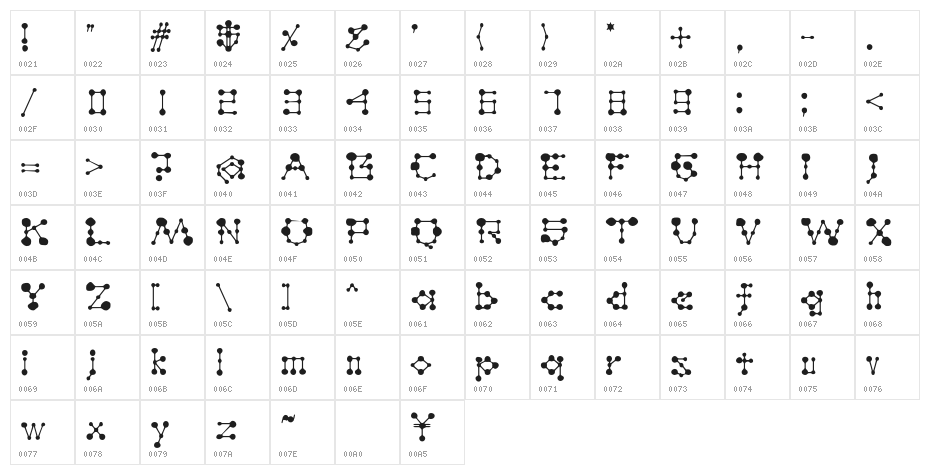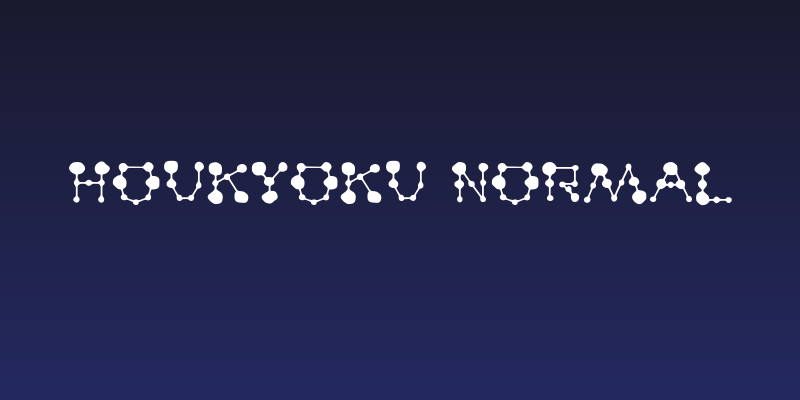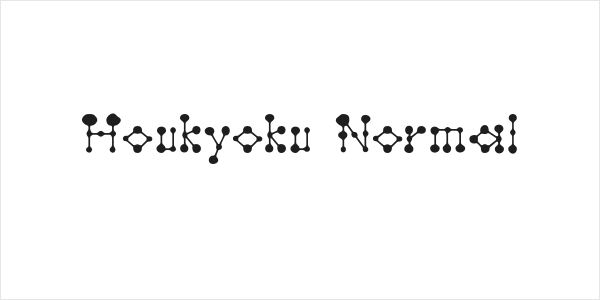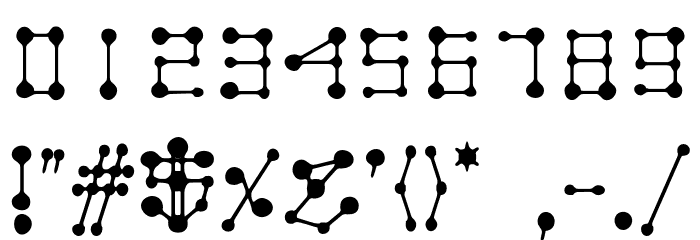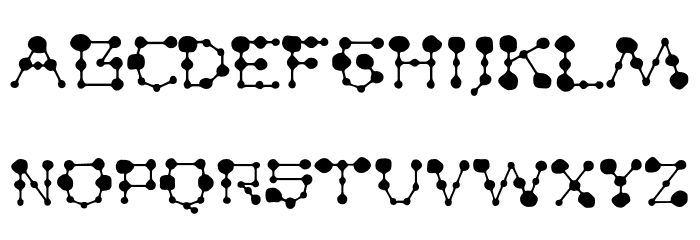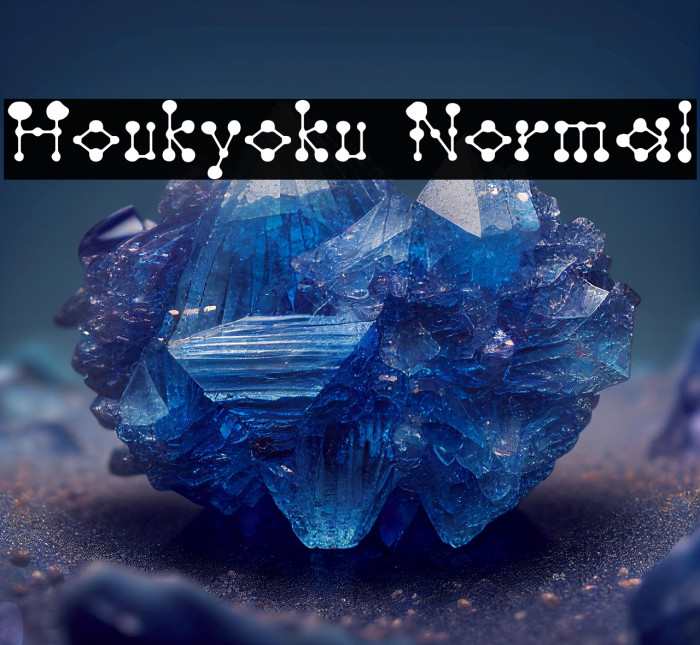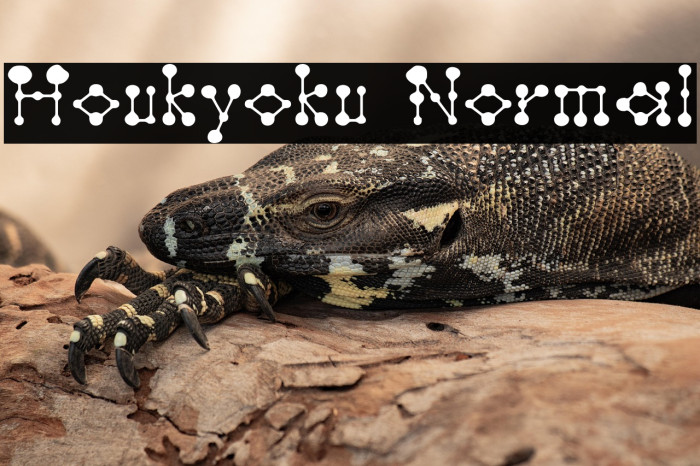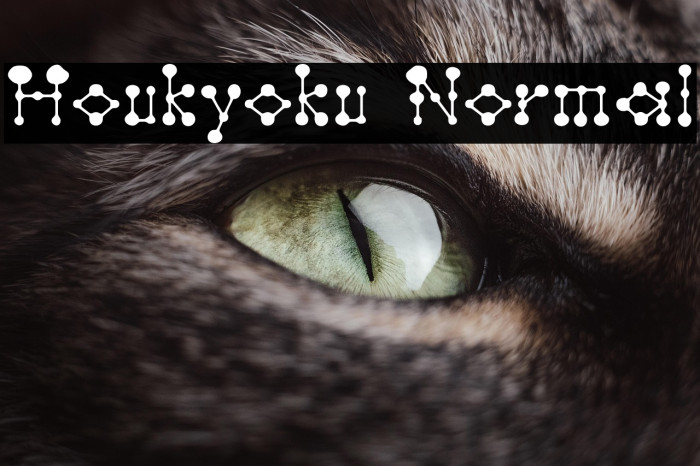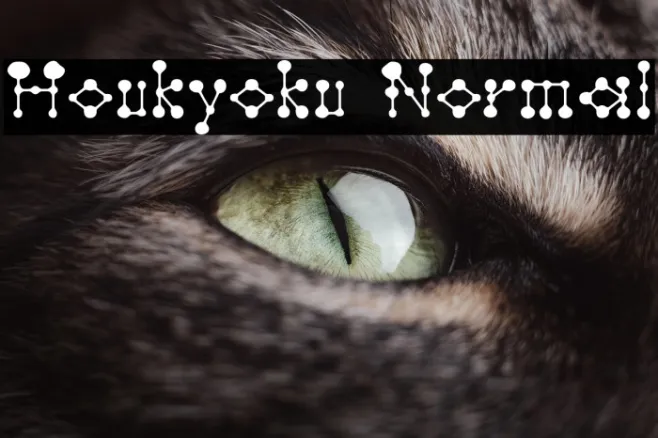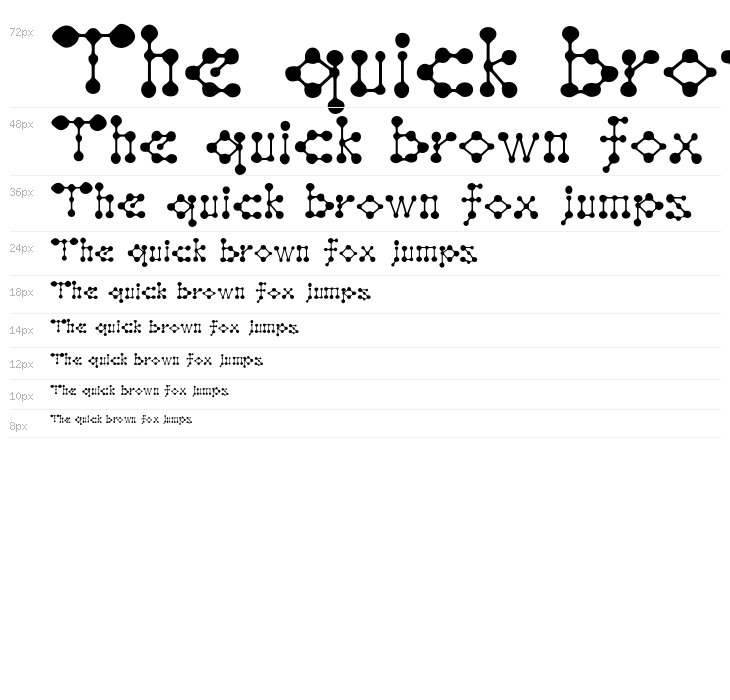
Houkyoku Normal Font
Houkyoku Normal Description
This font features a unique and playful design, characterized by its dot-connected strokes that form each letter and number. The characters are composed of circular nodes linked by thin lines, creating a molecular or network-like appearance. This design gives the font a futuristic and abstract feel, making it stand out in any design project. The uppercase and lowercase letters maintain consistent styling, ensuring readability while still offering a distinct visual appeal. The numbers and special characters follow the same design principles, ensuring a cohesive look across all glyphs.
| Overall Style | Futuristic, Abstract |
| Use Case | Logos, Posters, Creative Displays |
| Proposed Projects | Ideal for science fiction themes, tech-related branding, educational materials, or creative posters. |